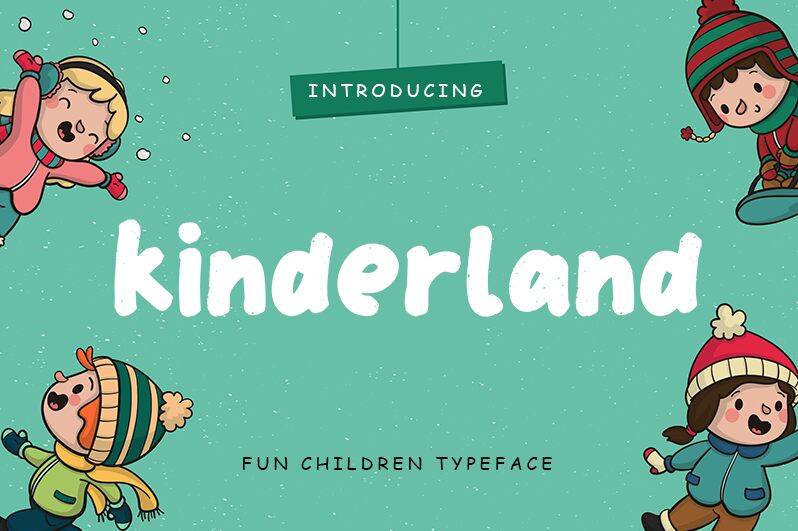
Kinderland font is a bold children's cartoon typeface designed by Rian Rahardi of Creatype Studio Co.
Kinderland
Kinderland Regular
Creatype Studio Co."
Rian Rahardi